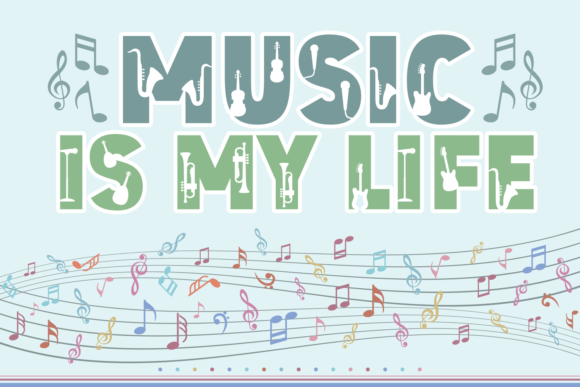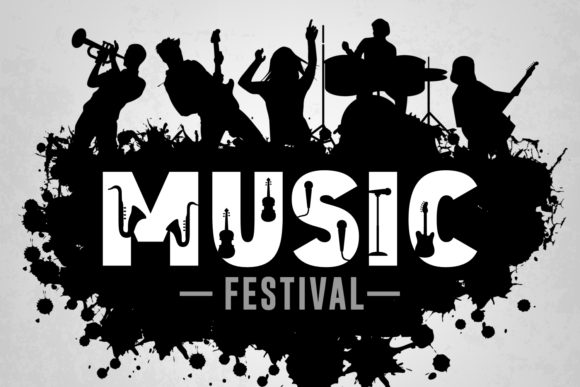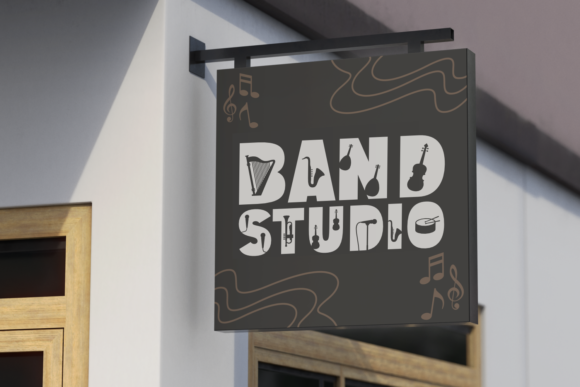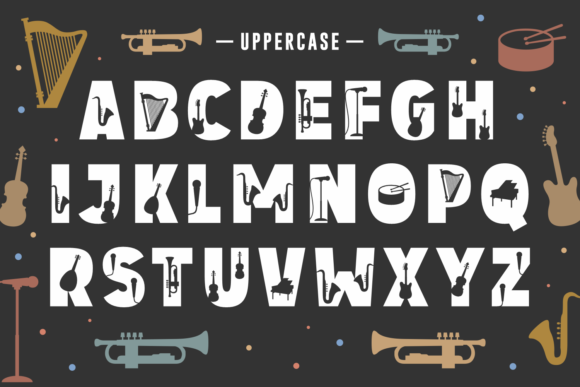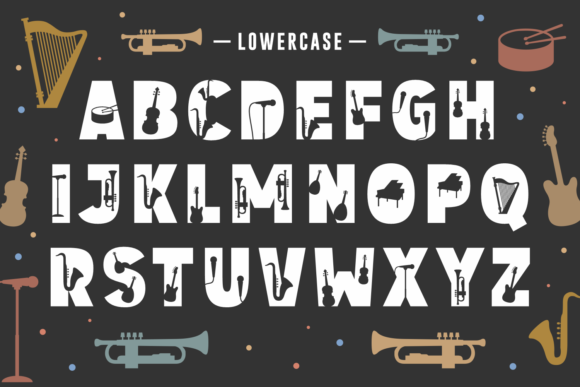
Introducing Happy Musica Font: The Perfect Choice for Music Lovers and Designers
Are you a music enthusiast, graphic designer, or crafty individual looking for a unique font to add a touch of personality to your projects? Look no further than Happy Musica Font, a charming decorative font that is sure to strike a chord with anyone who lays eyes on it. In this article, we’ll dive into the features and benefits of Happy Musica Font, and explore how you can use it to create stunning musical logos, branding materials, business cards, social media signatures, and more.
What is Happy Musica Font?
Happy Musica Font is a decorative font that boasts bold characters adorned with musical instruments, making it the perfect choice for anyone who wants to add a playful and musical touch to their designs. The font features a unique and eye-catching design, with each character carefully crafted to resemble a musical instrument. Whether you’re creating a logo for a music school, a branding material for a music festival, or a social media signature for a musician, Happy Musica Font is sure to make your design stand out from the crowd.
Key Features of Happy Musica Font
- Unique and eye-catching design: Happy Musica Font features bold characters decorated with musical instruments, making it a one-of-a-kind font that’s sure to grab attention.
- Perfect for musical designs: Whether you’re creating a logo, branding material, or social media signature, Happy Musica Font is the perfect choice for any music-related project.
- Versatile: Happy Musica Font can be used for a wide range of projects, from musical logos and branding materials to business cards and social media signatures.
How to Use Happy Musica Font
- Create a musical logo: Use Happy Musica Font to create a unique and eye-catching logo for a music school, music festival, or musician.
- Design branding materials: Use Happy Musica Font to create branding materials, such as business cards, brochures, and flyers, for a music-related business.
- Make a social media signature: Use Happy Musica Font to create a social media signature that showcases your personality and style.
- Add a musical touch to your craft projects: Use Happy Musica Font to add a musical touch to your craft projects, such as handmade cards, gift tags, and scrapbook pages.
Tips and Tricks for Using Happy Musica Font
Here are a few tips and tricks for using Happy Musica Font:
- Experiment with different colors: Happy Musica Font looks great in a variety of colors, so don’t be afraid to experiment and find the perfect color scheme for your design.
- Pair with other fonts: Happy Musica Font can be paired with other fonts to create a unique and eye-catching design.
- Use in combination with images: Happy Musica Font can be used in combination with images, such as musical instruments or music-related graphics, to create a stunning design.